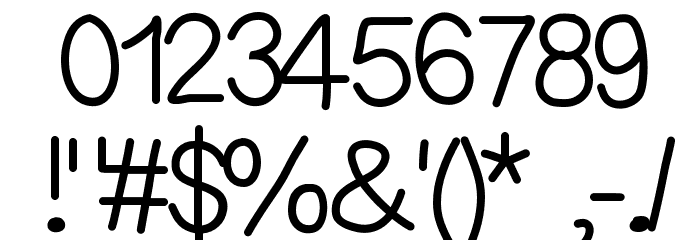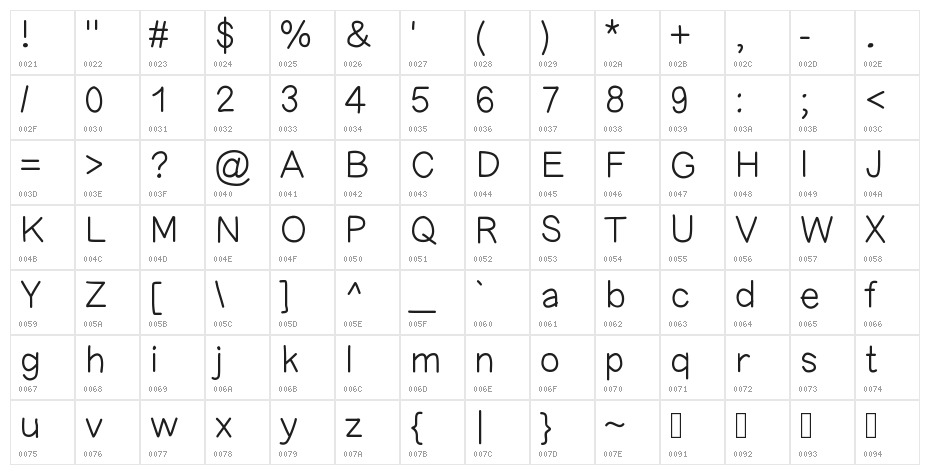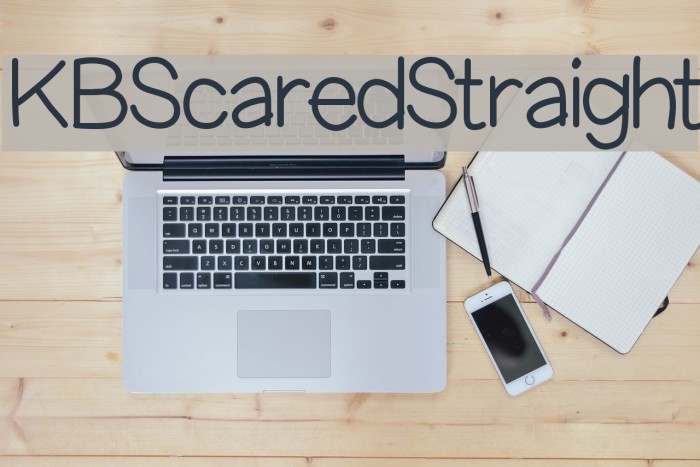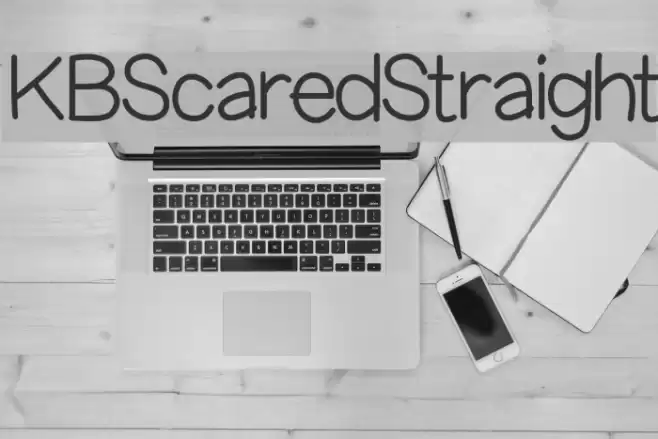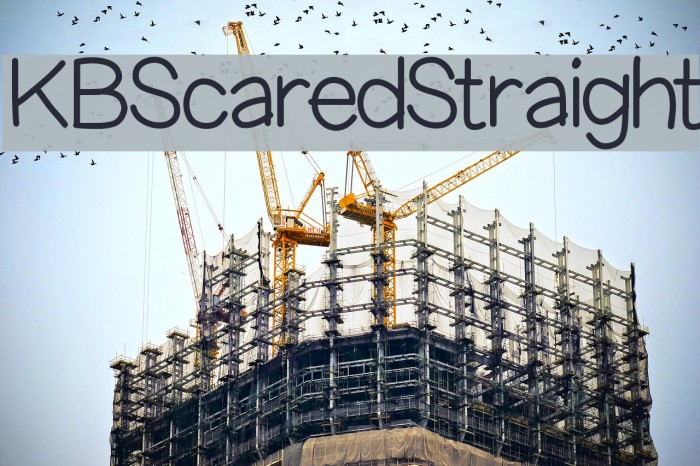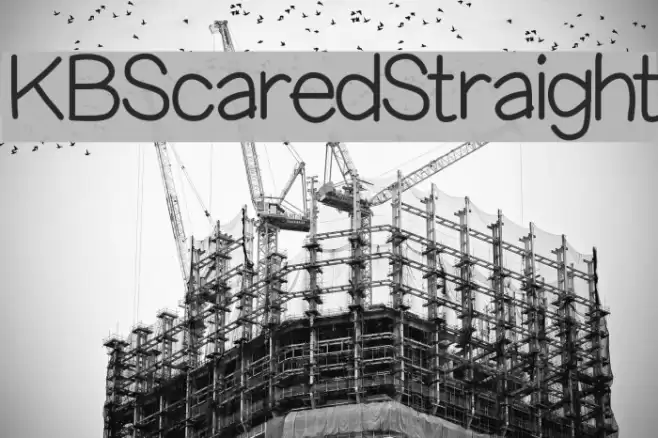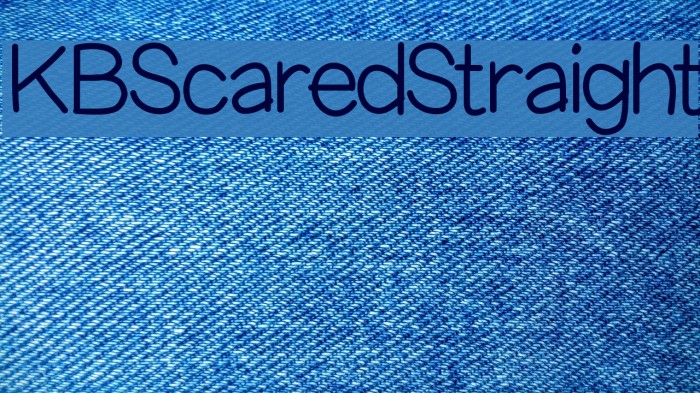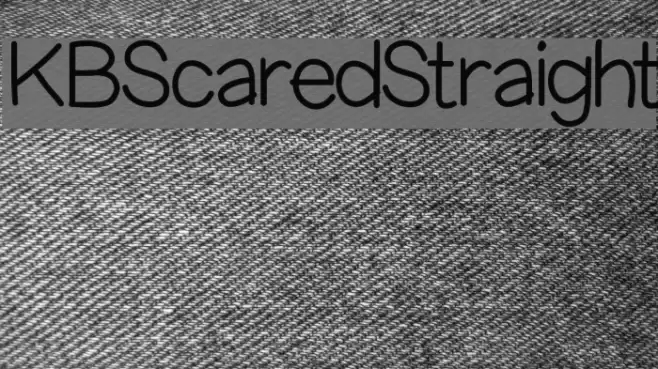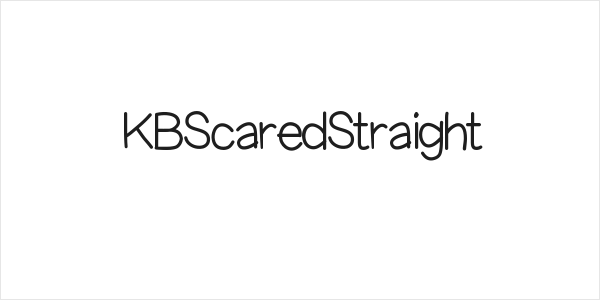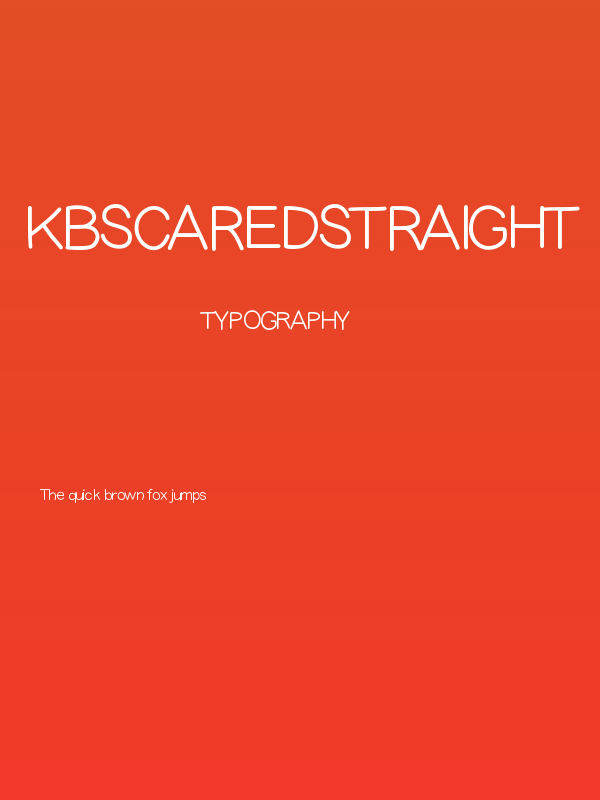
KBScaredStraight Font
KBScaredStraight Description
This font features a clean and modern sans-serif style with rounded edges, giving it a friendly and approachable appearance. The characters are evenly spaced, providing a balanced and harmonious look. The uppercase and lowercase letters maintain a consistent height, contributing to its readability. The numerals are clear and distinct, while the special characters are well-integrated into the overall design. Its simplicity and clarity make it versatile for various applications.
| Proposed Projects | Ideal for branding, web design, children's books, and educational materials due to its readability and friendly appearance. |